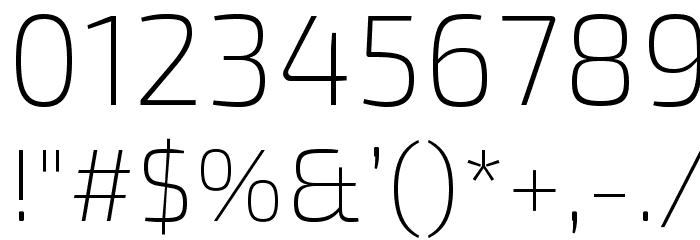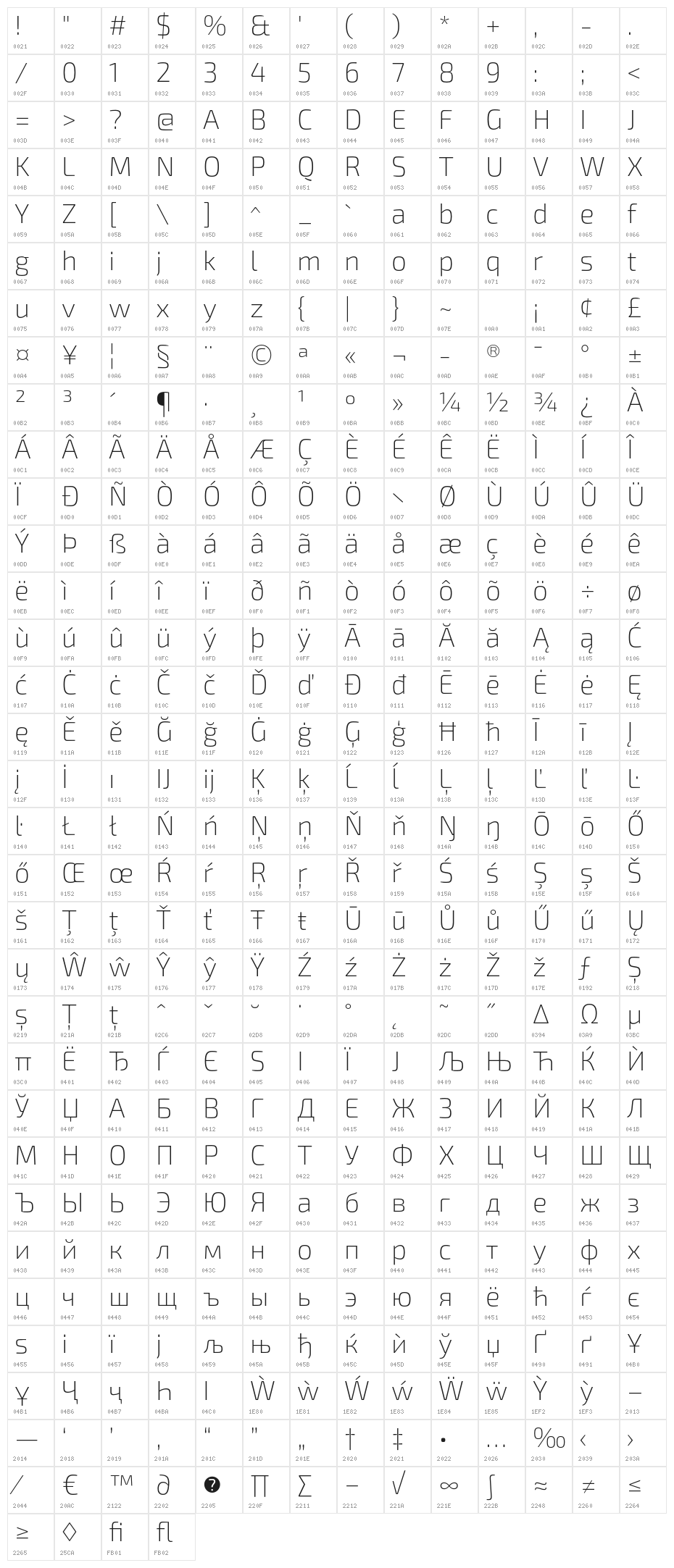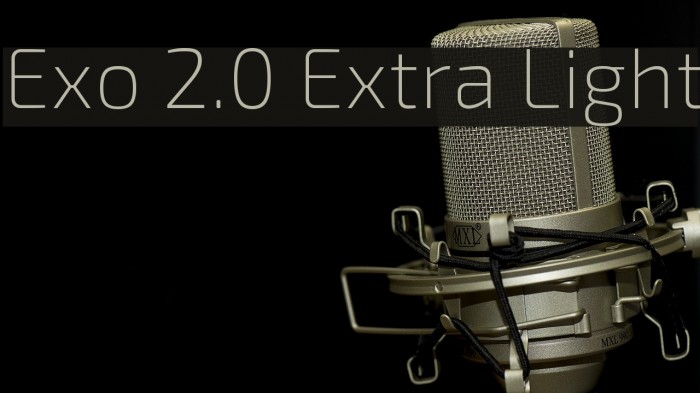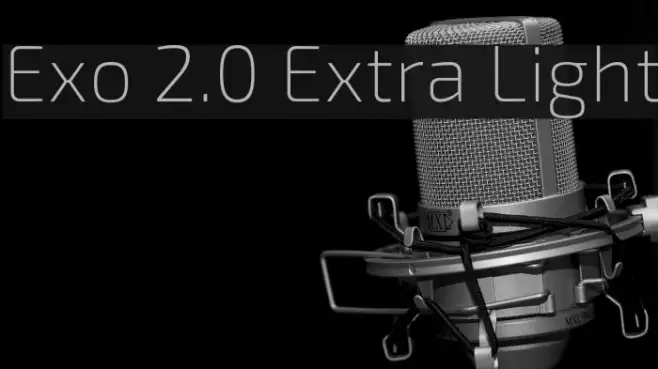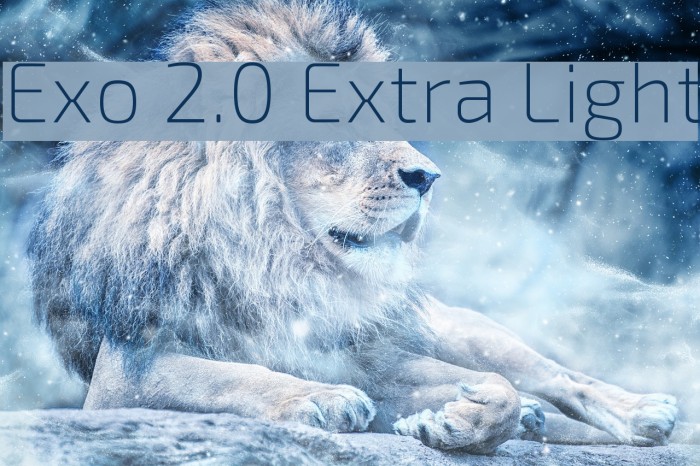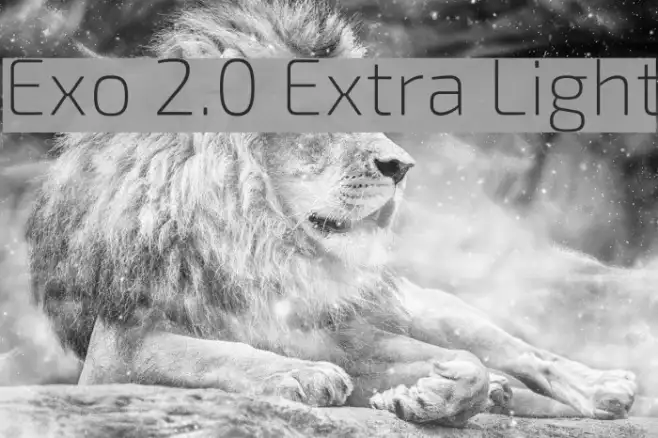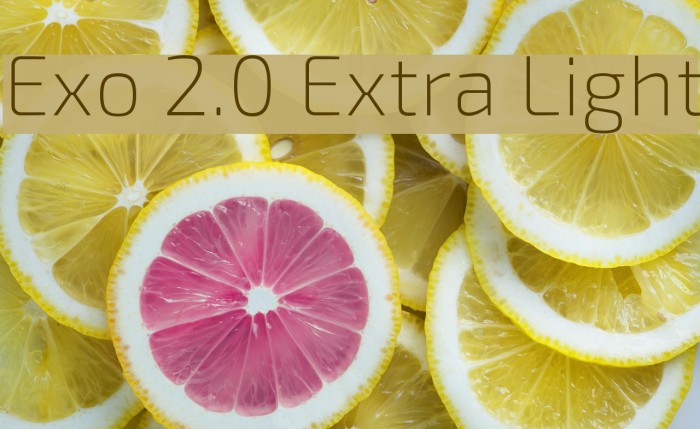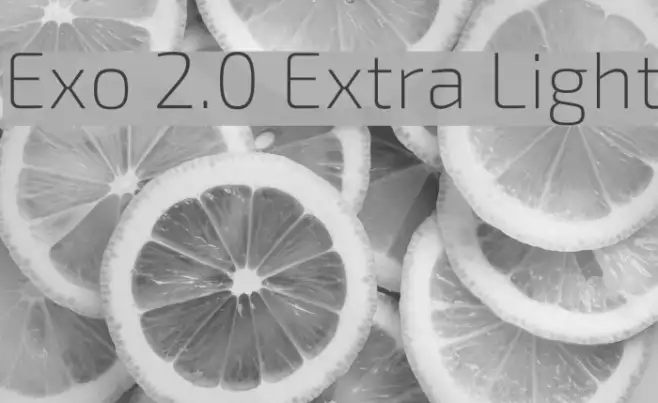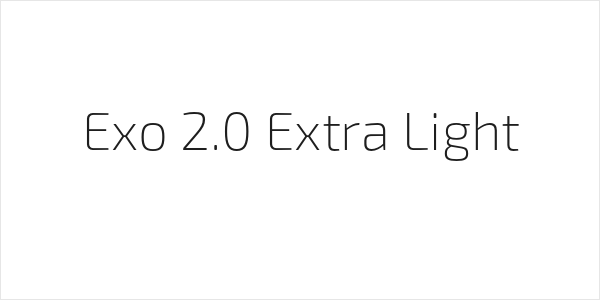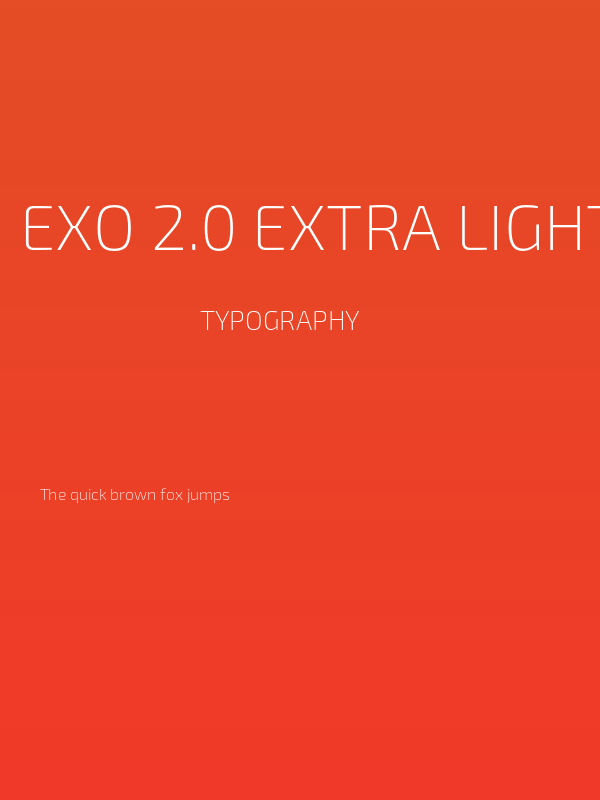
Exo 2.0 Extra Light Font
Exo 2.0 Extra Light Description
This font features a sleek and modern design with clean lines and a geometric structure. The characters are evenly spaced, providing a balanced and harmonious appearance. The uppercase letters are tall and slightly condensed, while the lowercase letters maintain a consistent height, contributing to a uniform look. The numerals are clear and distinct, making them easily readable. Special characters are designed with the same attention to detail, ensuring they integrate seamlessly with the rest of the typeface. The overall style is minimalistic, making it suitable for contemporary design projects.